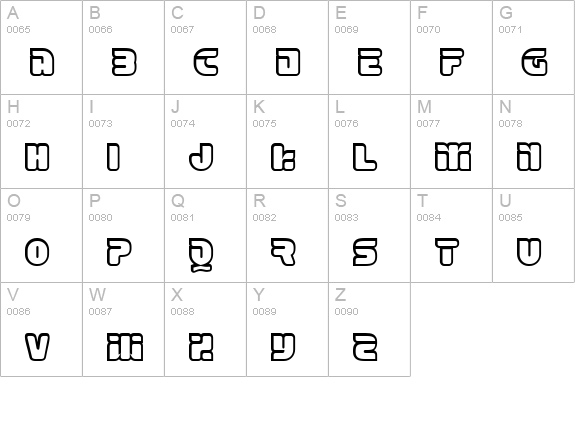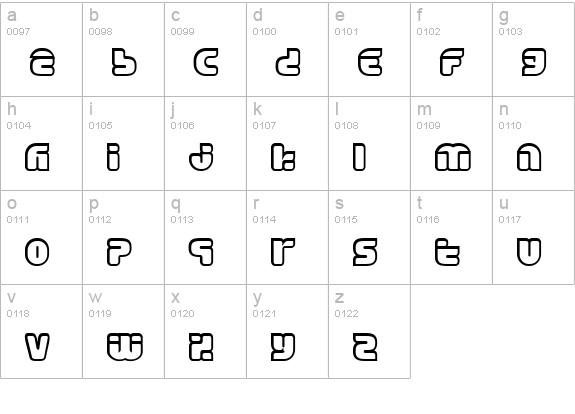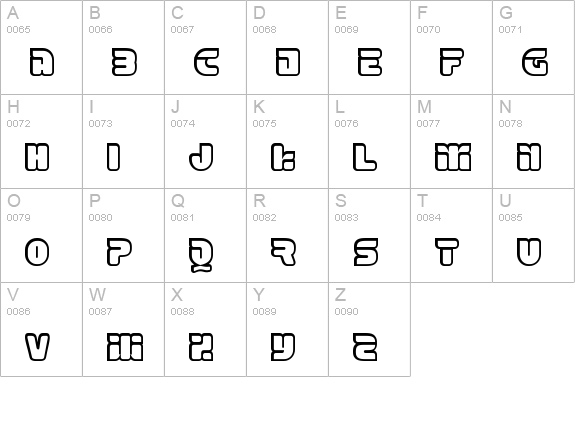
EraserTenGuage Font Details
EraserTenGuage font is a bold and edgy typeface that exudes a sense of strength and modernity. With its sharp lines and geometric shapes, this font commands attention and makes a powerful statement in any design project. Whether you're creating posters, logos, or headlines, EraserTenGuage adds a touch of boldness and sophistication to your work. The best part? EraserTenGuage font is completely free to download at FontsMarket.com. Now you can elevate your designs with this striking typeface without any cost. Don't miss out on the opportunity to enhance your projects with the unique style and impact of EraserTenGuage font. Download it today and let your creativity shine!